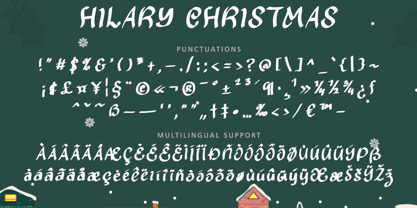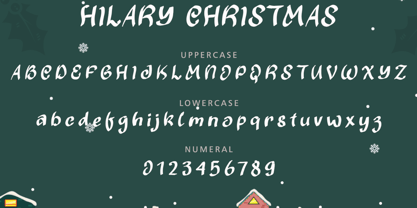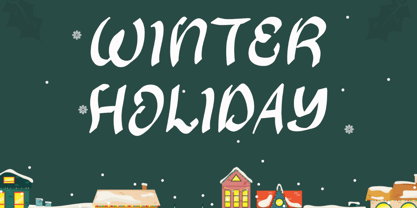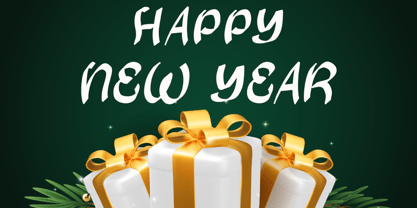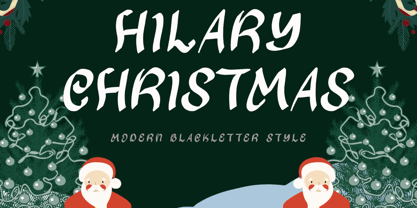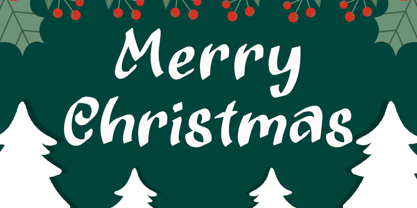
Hilary Christmas
by Yoga Letter
The Hilary Christmas Font Family was designed by Isroni Yoga Prasetya and published by Yoga Letter. Hilary Christmas contains 1 styles. More about this family
"Hilary Christmas" is a unique and elegant blackletter font. It comes with capital letters, lowercase letters, numbers, punctuation, and multilingual support. It is perfect for use on Christmas, logos, banners, invitations, gifts, branding, posters, stickers, Valentine's, New Year and more.
Designers: Isroni Yoga Prasetya
Foundry: Yoga Letter